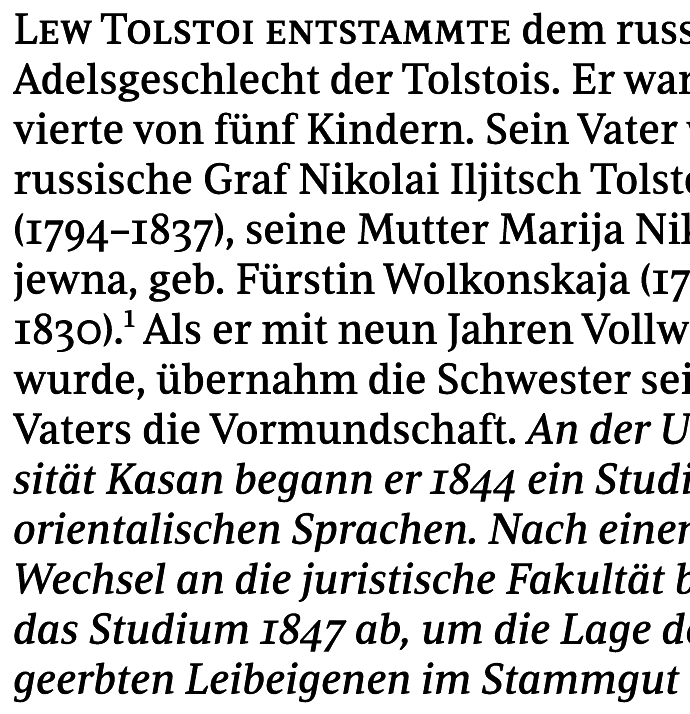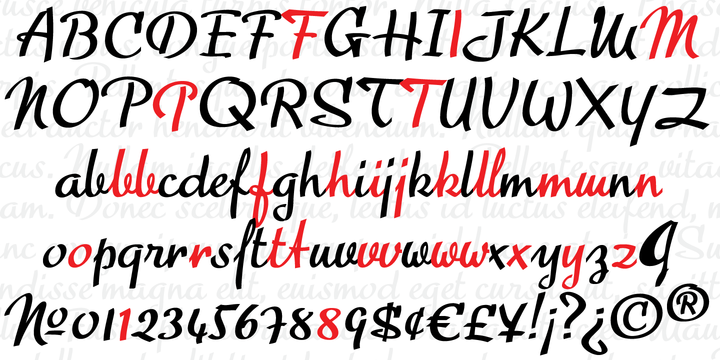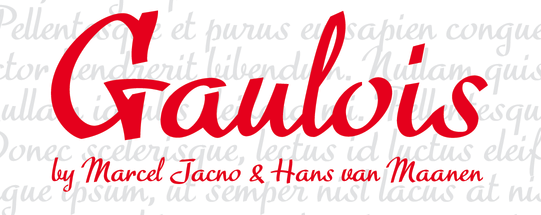
Hans van Maanen
Dutch science journalist who has published extensively in the Volkskrant. He is also into fine arts and illustration, and has even designed a few fonts. MyFonts page. Klingspor link. - His first production was Lexington and Lexington Handtooled (2006, a revival and major expansion of a 1926 Ludwig Wagner Schriftgiesserei typeface called Titanic. A typical art deco signage typeface which can be bought at Canada Type, and is characterized by its rabbit-eared k, l, b, d and h).
- He also digitized and expanded Aurora Grotesk (1912, Johannes Wagner foundry) and called it Annonce (2006, Canada Type).
- As explained by Canada Type: The story of Serena is a unique one among revivals. Serena was neither a metal typeface nor a film one. In fact it never went anywhere beyond Stefan Schlesinger's 1940-41 initial sketches (which he called Saranna). A year later, while working with Dick Dooijes on the Rondo typeface, Schlesinger was sent to a concentration camp where he died, along with any material prospects for the gorgeous letters he'd drawn. The only sketches left of Schlesinger's Saranna work are found in the archives of the Drukkerij Trio (the owner of which was Schlesinger's brother-in-law). The sketches were done in pencil and ink over pencil on four sheets of paper. And now Hans van Maanen revives Schlesinger's spirit as closely as the drawings permit. Hans Van Maanen thus digitized Serena (2007, Canada Type).
- Dutch Mediaeval (2007, 9 styles) is a text family based on Hollandse Mediaeval, the 1912 Sjoerd Hendrik De Roos classic. Followed in 2013 by Dutch Mediaeval Book ST (done together with Patrick Griffin), which was engineered specifically for science writing.
- Freco (2006, Canada Type): an art deco font.
- Circulaire (2009, Canada Type) is a set of initial caps designed by Sjoerd Hendrik de Roos in 1926.
- Adams (2008, Canada Type) is a revival and major expansion of Dolf Overbeek's Studio typeface and Flambard, its bold counterpart, originally published by the Amsterdam Type Foundry in 1946 and 1954, respectively.
- Lotto: A brush typeface originally designed by expert ad artist Herbert Thannhaeuser for East German foundry Typoart in 1955. Revived by Van Maanen at Canada Type in 2009.
- Diploma (2009, Canada Type) is a revival of Diplomat, a metal type made by the in-house team of Ludwig&Mayer and first published in 1964.
- Roos (2009): A 10-style revival and extension of Sjoerd Hendrik de Roos's De Roos Romein (1948), created in cooperation with Patrick Griffin at Canada Type.
- Archie (2010): a heavy techno sans banner face, done at Canada Type as a revival of work by Martin Meijer.
- Agent (2010, Canada Type) is another revival of work by Martin Meijer.
- Aragon (2010, Canada Type): Advertised as a workhorse Dutch Garamond family. Includes an open style called Aragon Initials.
- Naga (+Naga Outline, 2011, Canada Type) is Hans van Maanen's original creation of art deco shapes intersected with intricate mazes of what could be Celtic or Mesoamerican knotwork art.
- Zilvertype (2012). A 590-glyph typeface revival published by Canada Type: Right on the heels of the tremendous popularity wave that made Hollandse Mediaeval the most used Dutch typeface during the Great War years, Sjoerd H. de Roos was asked to design a 15 point type for De Zilverdistel, Jean-François van Royen's publishing company. So between 1914 and 1916, de Roos and van Royen collaborated on the typeface eventually known as Zilvertype, and which both parties viewed as an improved version of Hollandse Mediaeveal. Like Hollandse Mediaeval, Zilvertype was based on the Jenson model, but it is simpler, with more traditional metrics, and lighter and more classic in colour. Followed in 2014 by the expanded Zilvertype Pro.
- Minuet (2007) revives Schlesinger's Rondo.
- Grippo (2012). A layered font in six styles, with a general art deco look.
- Gaulois (2012). Based on Scribe (1937, Marcel Jacno), an art deco era signage and advertising script.
- Wilke Kursiv (2013) is based on Martin Wilke's Wilke Kursiv from 1932.
- Aragon ST (2013, with Patrick Griffin). Related to Garamond, this family was designed for science writing, thanks to the incorporation of SciType. SciType is a flexible combination of oft-ignored letterforms and innovative OpenType programming that can be incoporated into existing text fonts in order for them to function seamlessly when including common science formulas and equations in regular text.
- In 2015, Hans cooperated with Patrick Griffin on the sturdy small text typeface Leo.
Hans van Maanen